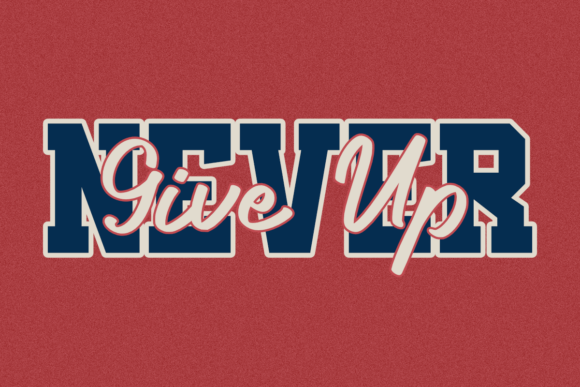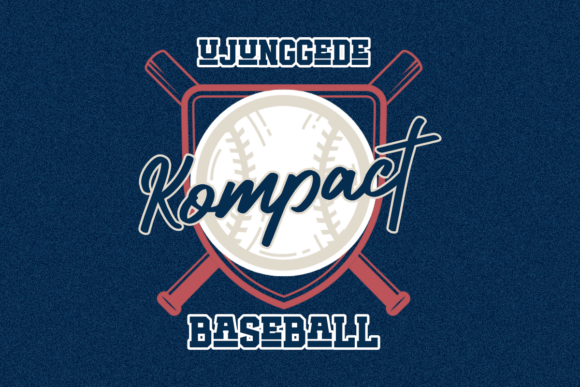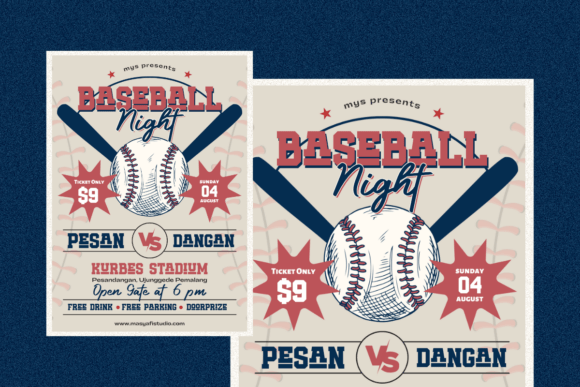
Introduction to Farmer Vintage Regular Font
Do you remember the rush of excitement when you stumbled upon the perfect font for your latest creative project? For designers, that moment is pure magic – and it’s exactly what we’re here to help you achieve with the Farmer Vintage Regular Font.
This bold slab serif and script font duo is a game-changer for any project that needs a strong, nostalgic presence. Inspired by classic sports typography, particularly from vintage baseball and basketball designs, Farmer Vintage Regular Font brings a high-quality, varsity-inspired aesthetic to your work. Whether you’re designing book covers, posters, packaging, or logos, this dynamic font duo is a valuable design resource that adds a sporty yet timeless edge to any creative layout.
Key Features of Farmer Vintage Regular Font
- High-quality design resource ideal for creative projects, such as invitations, posters, and labels.
- Features a distressed, vintage aesthetic with a transparent background, allowing for easy layering and customization.
- Perfect for adding a rustic, vintage touch to your creative project, from wedding invitations to menu boards.
Honest Review: Farmer Vintage Regular Font
I recently stumbled upon the Farmer Vintage Regular Font and I must say it’s a fantastic addition to any design resource. As a designer, I’m always on the lookout for high-quality fonts that can elevate my creative projects.
What works well with this font is its versatility – it’s perfect for a wide range of designs, from rustic to modern. The font’s distressed look adds a touch of character to any project, making it ideal for branding, packaging, or even editorial designs. ✨
- High-quality design with a unique, vintage feel
- Perfect for a variety of creative projects, from branding to editorial designs
One limitation I noticed is that the font doesn’t include a transparent background option, which can be a bit limiting for designers who need to work with complex backgrounds. ⚠️
Overall, I’m impressed with the Farmer Vintage Regular Font. Its high-quality design and versatility make it a valuable addition to any design resource. If you’re looking for a font that can add some character to your creative projects, I highly recommend giving it a try.
Tips for Getting the Most Out of Farmer Vintage Regular Font
For a seamless design experience, make sure to pair the Farmer Vintage Regular Font with a transparent background to achieve a clean and vintage-inspired look. Experiment with different font sizes, colors, and styles to add depth and interest to your design project.
The Farmer Vintage Regular Font is perfect for a variety of creative projects, including: